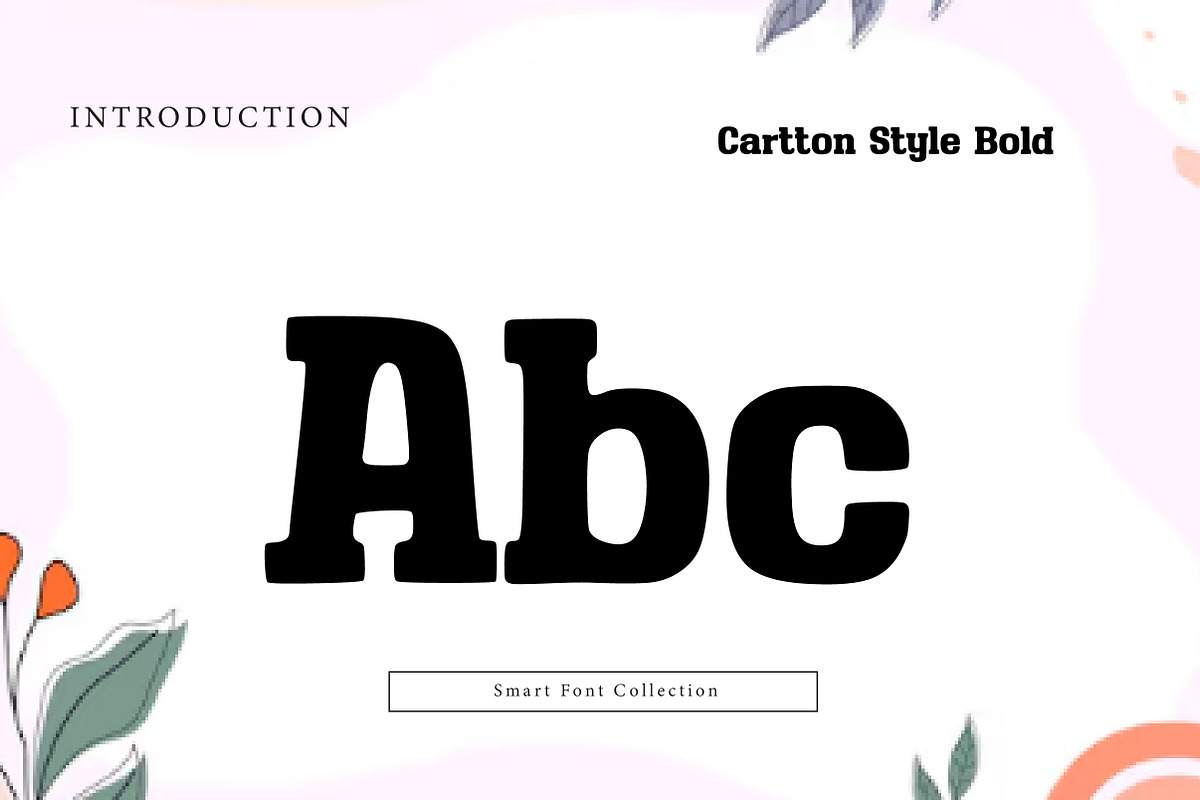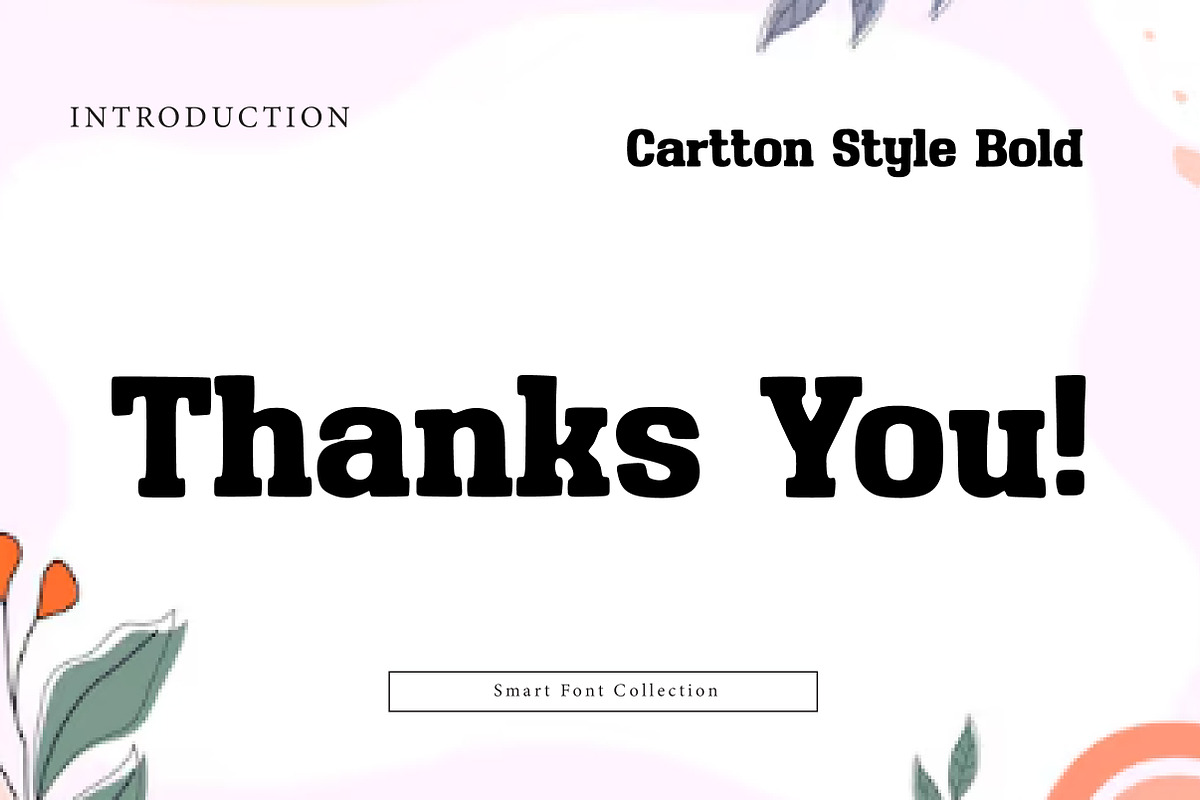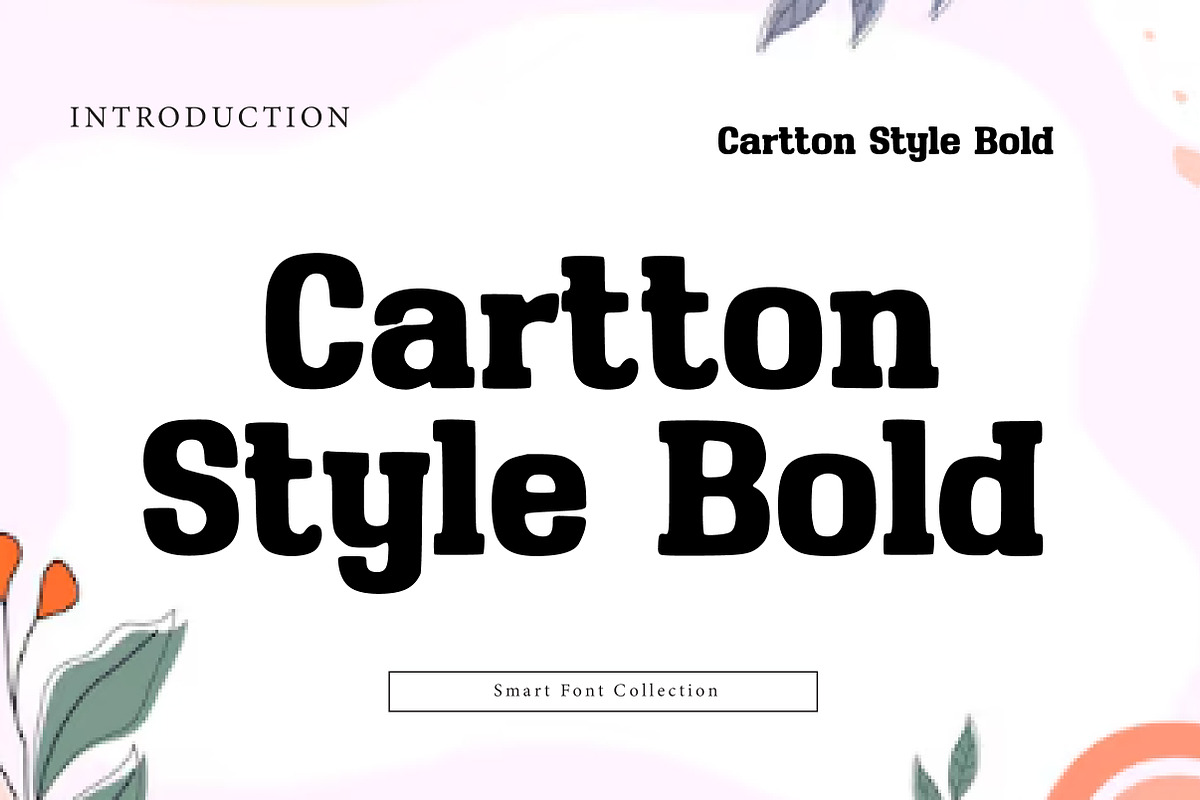
Cartton Style Bold
Cartton Style Bold is a strong, playful cartoon display font built with thick strokes and friendly rounded forms. Its bold weight and simple, energetic style make it perfect for kids branding, comics, game titles, posters, stickers, logos, packaging, and eye-catching headlines. Cartton Style Bold delivers maximum fun with high readability—ideal for designs that need a cheerful, animated look with powerful impact.